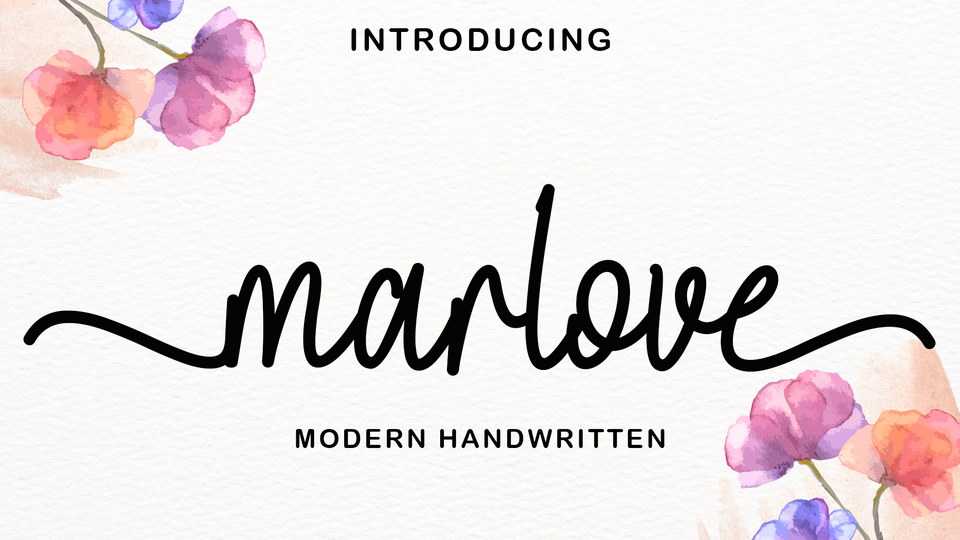
Download Marlove font, a simple and natural handwritten script typeface. Marlove is perfect for any crafting project notes, quotes, t-shirt printing, creative products, and more.
Designer: Selvia Design